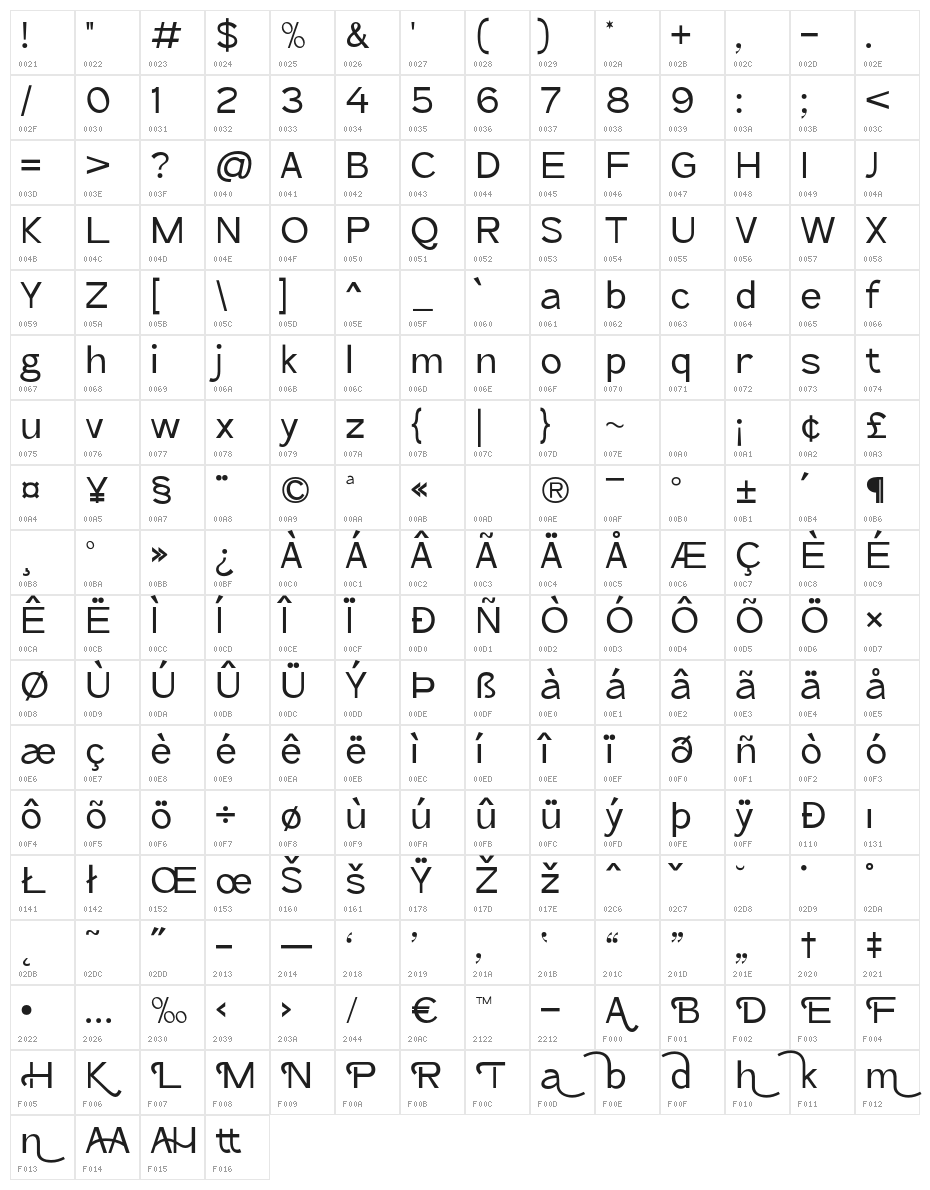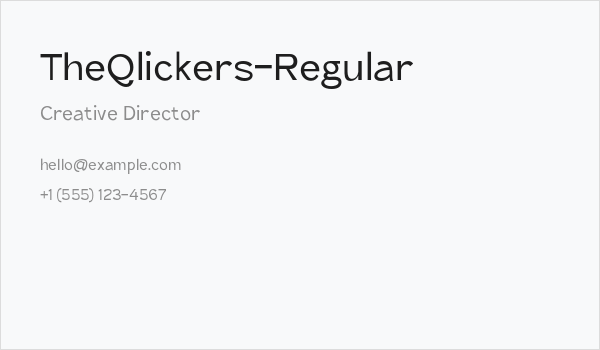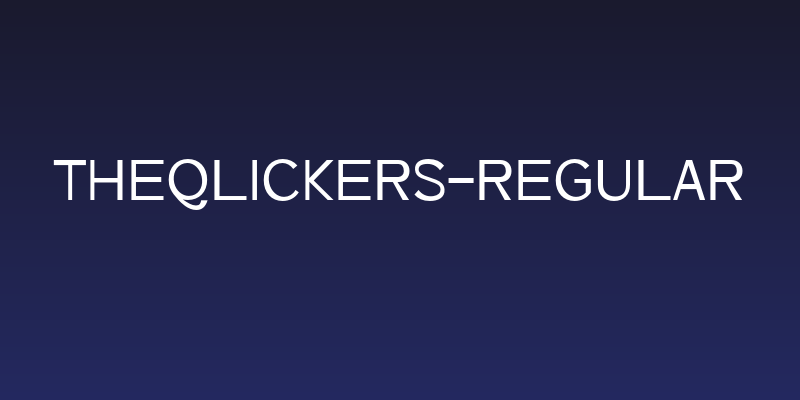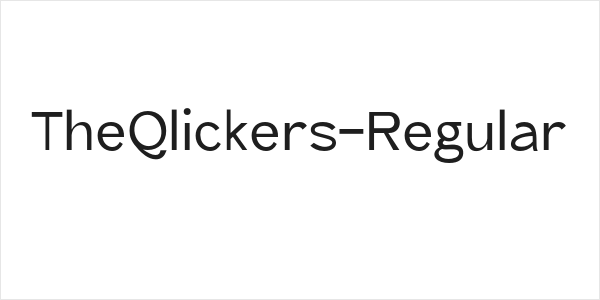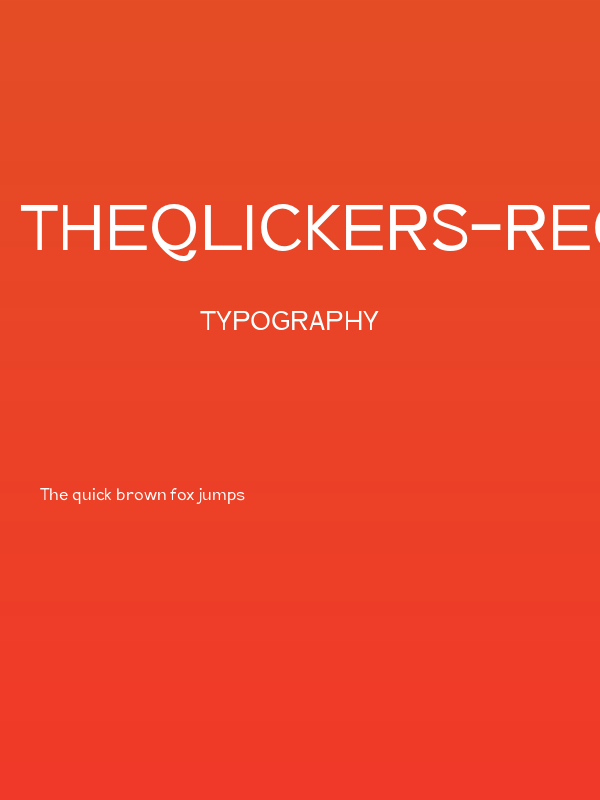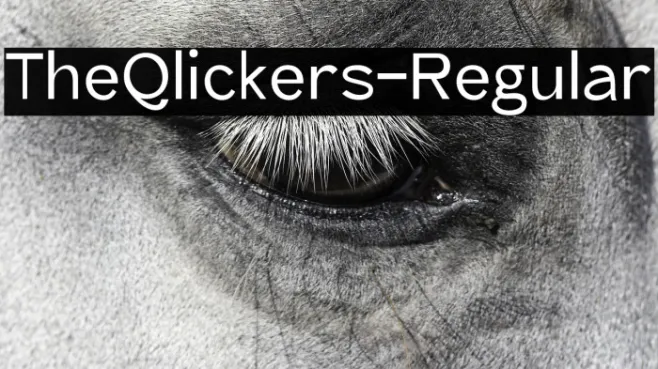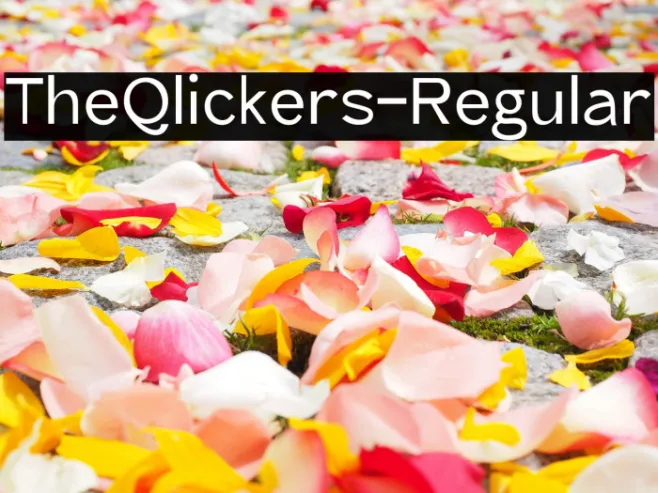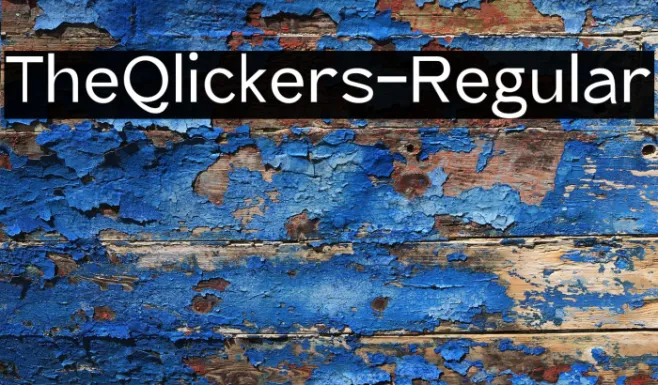
TheQlickers-Regular Font
TheQlickers-Regular Description
This font features a clean and modern sans-serif style with a geometric structure. The characters are well-balanced, offering a harmonious appearance that is both professional and approachable. The uppercase letters are bold and assertive, while the lowercase letters maintain a friendly and open feel. The numerals are clear and easy to read, making them suitable for various applications. Special characters are designed with simplicity and clarity in mind, ensuring they integrate seamlessly with the rest of the typeface. Overall, this font is versatile and can be used in a wide range of design projects.
| Font Family | The Qlickers |